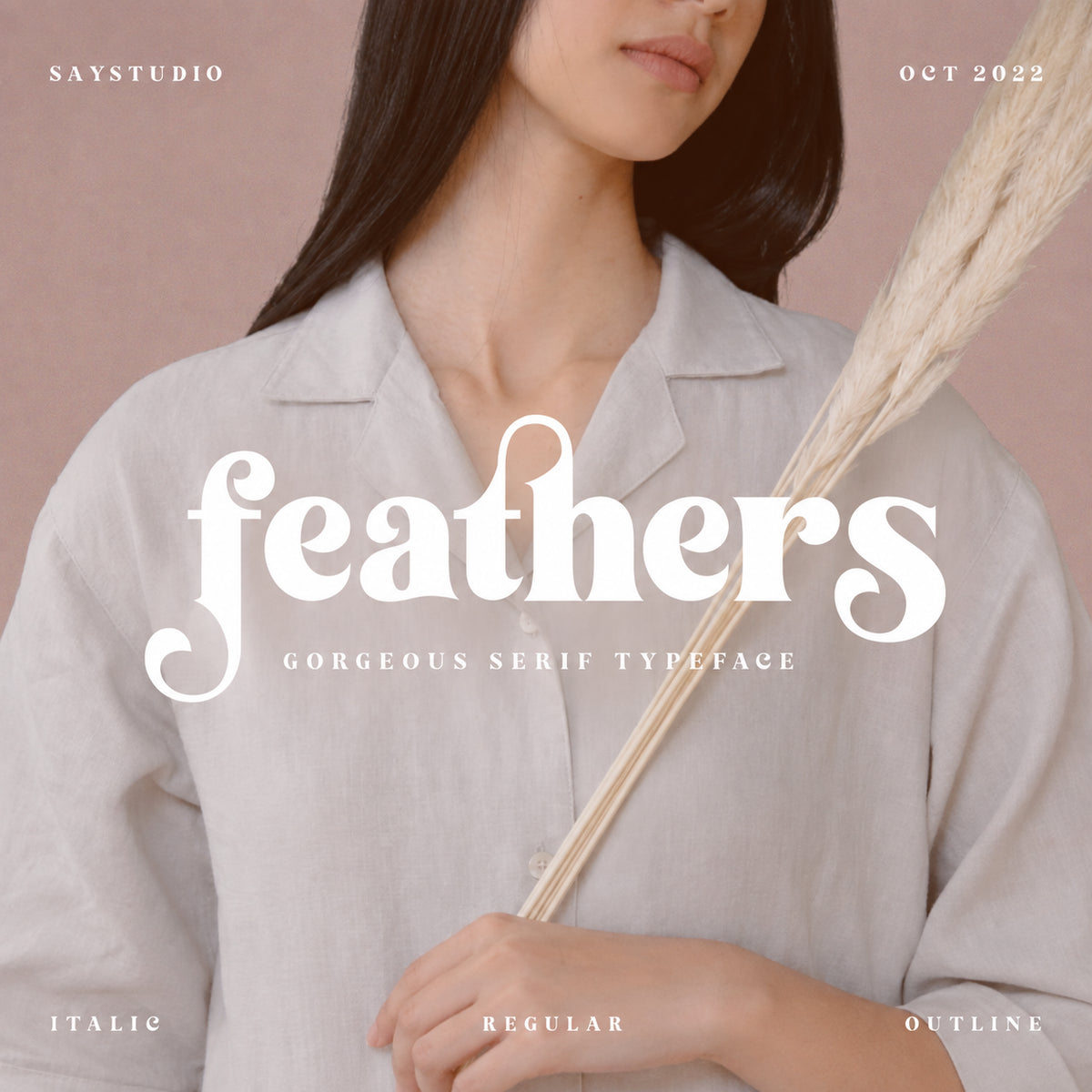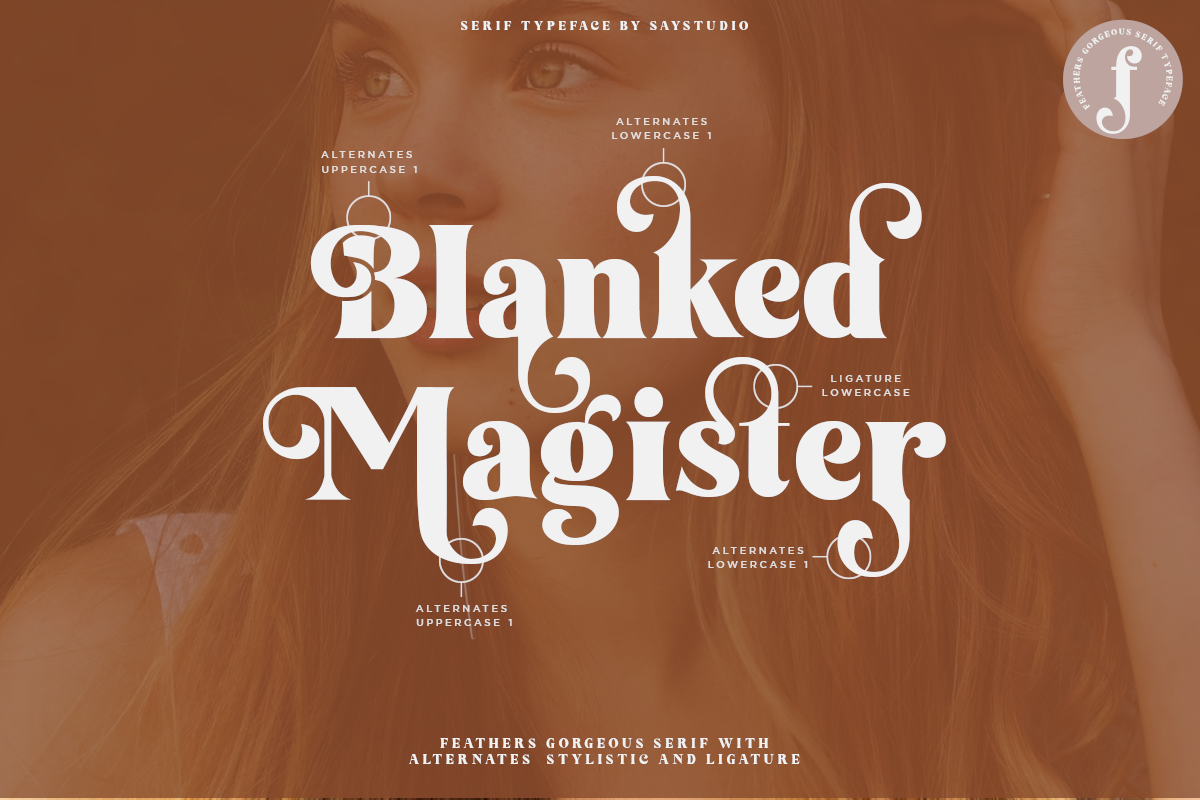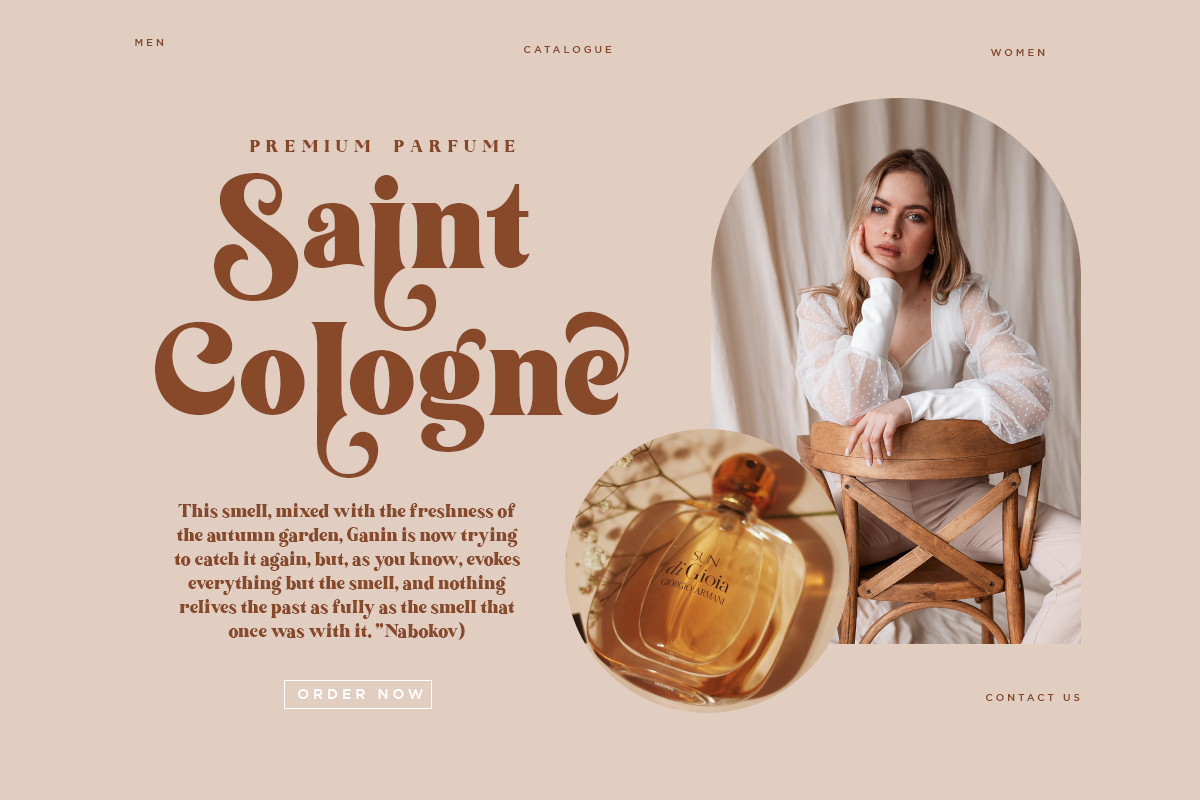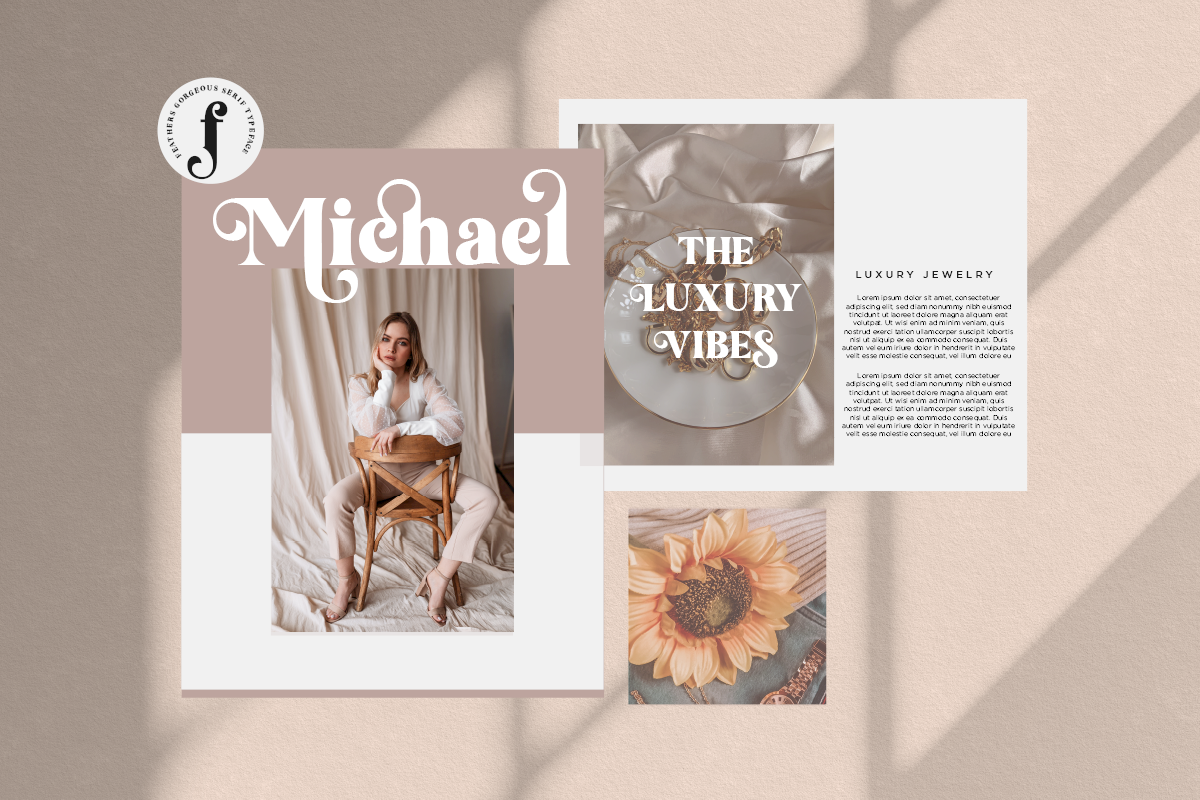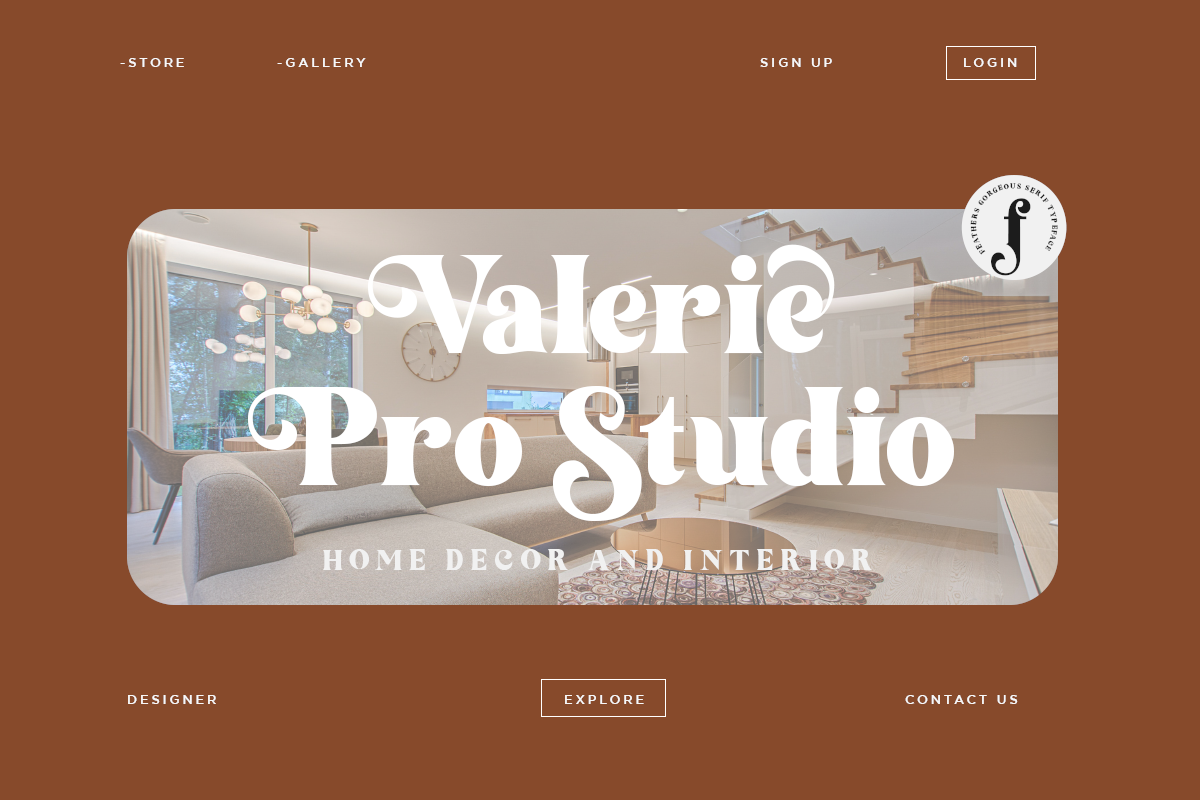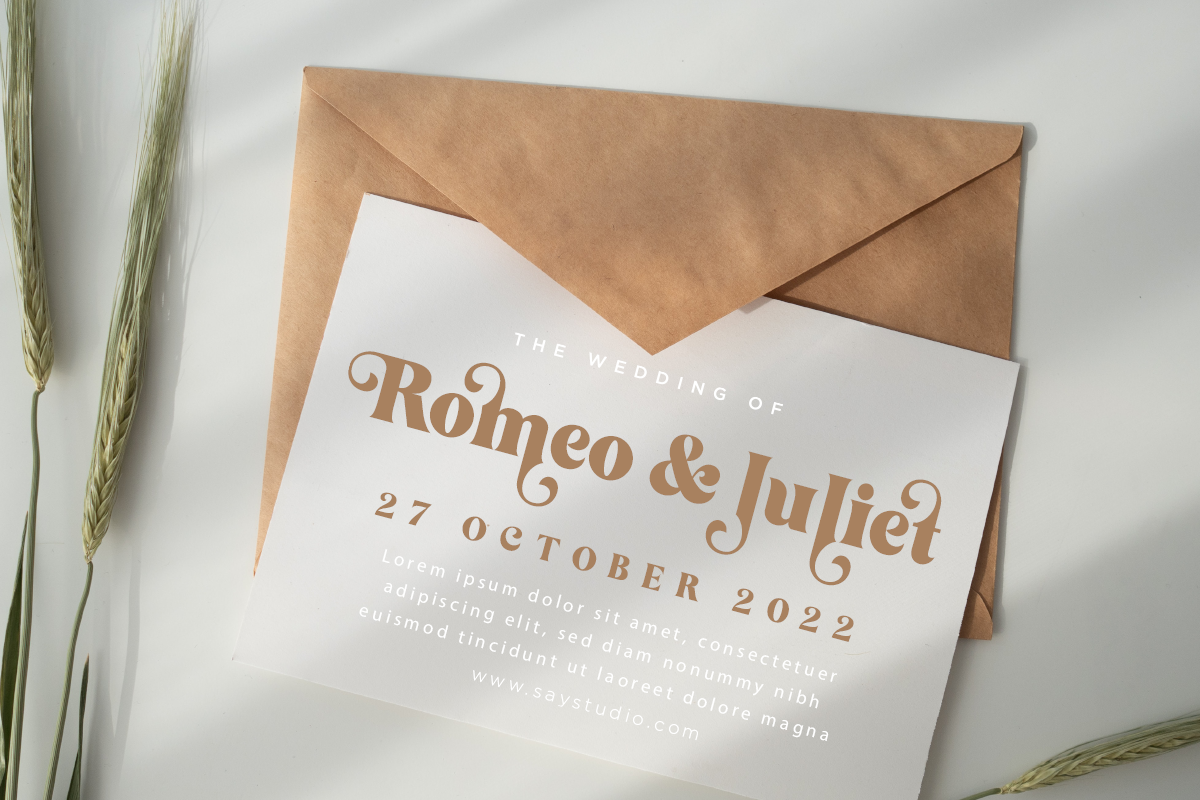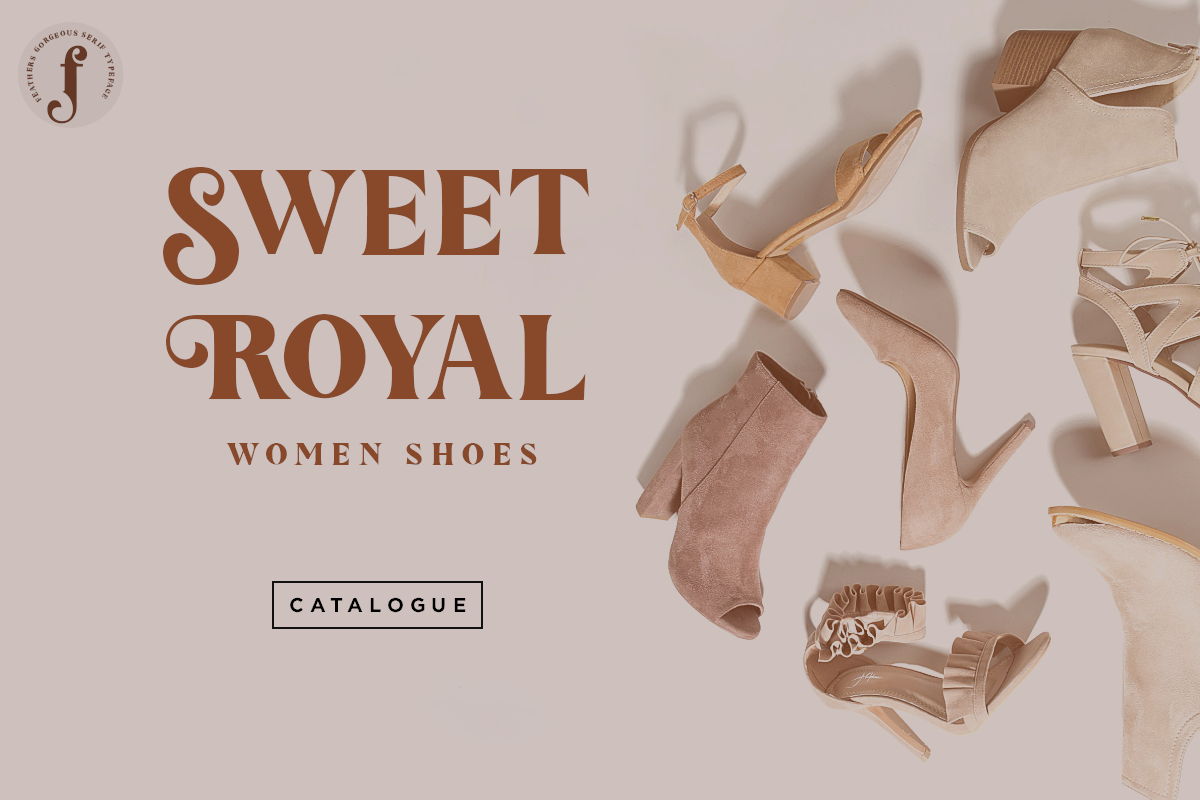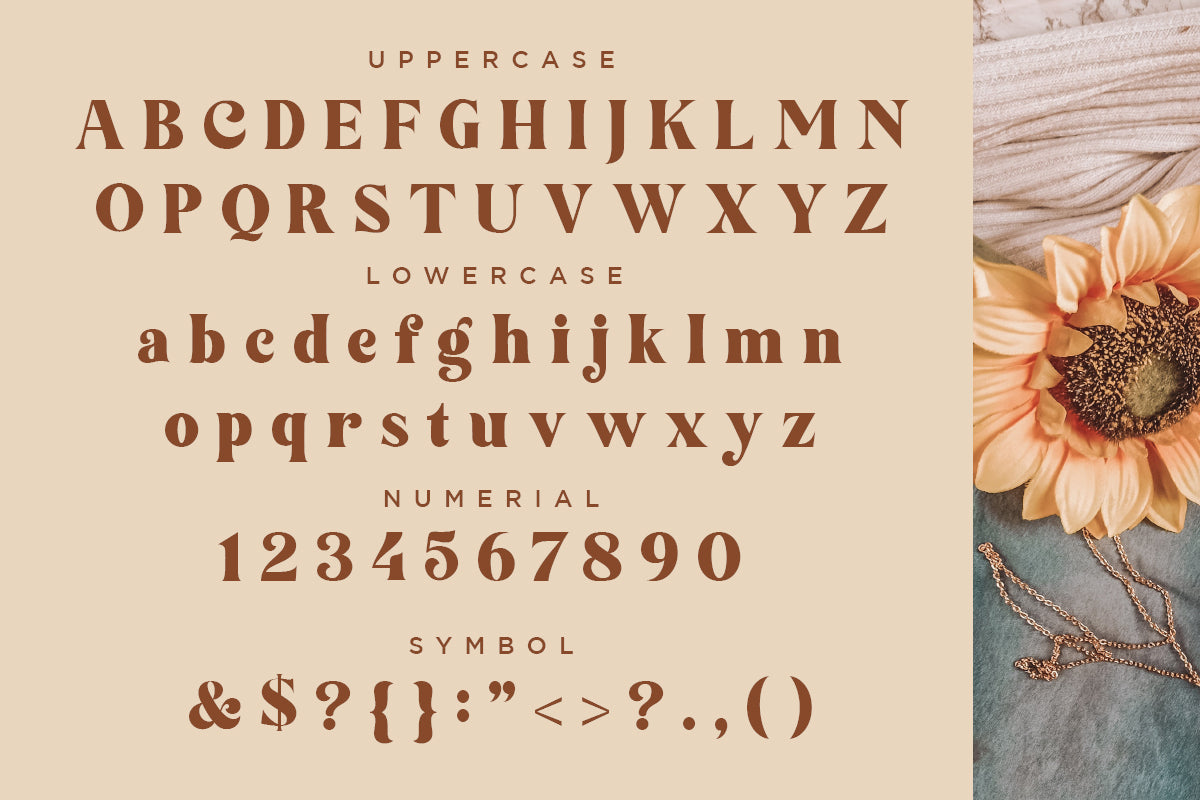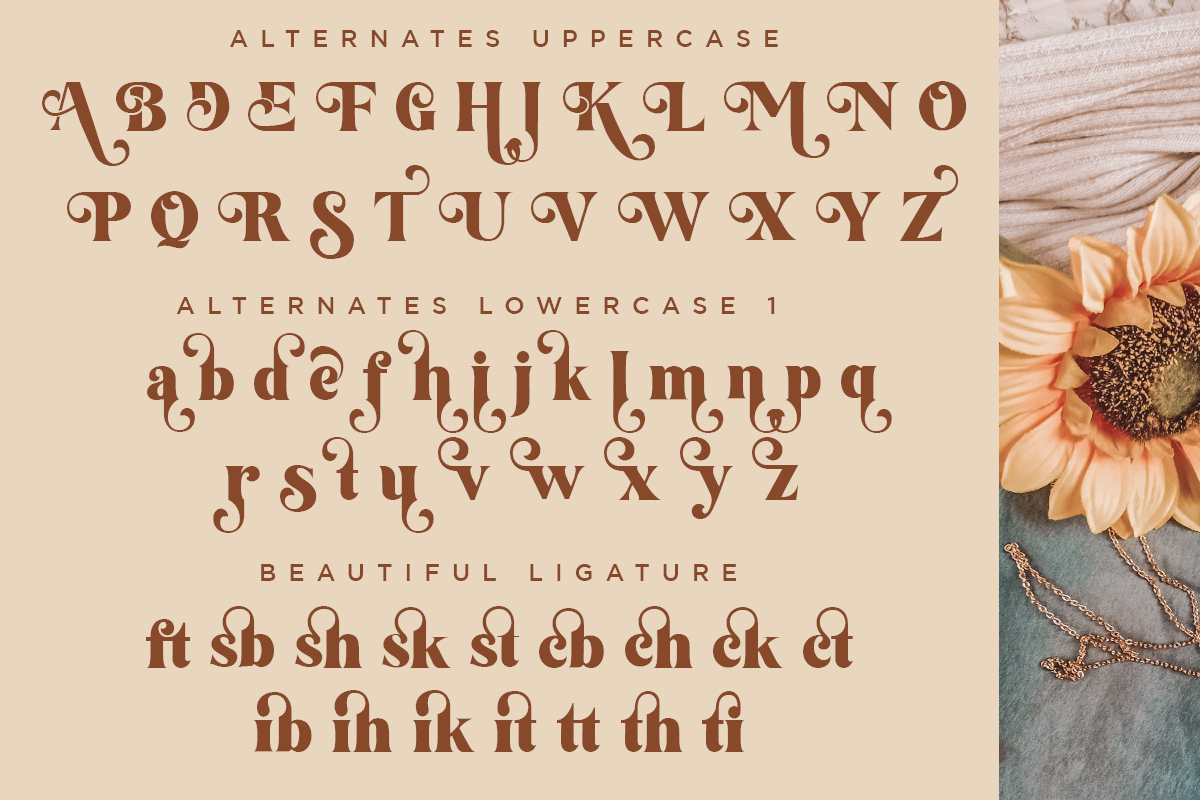
Feathers – Elegant Decorative Serif Font
Feathers is an elegant decorative serif font designed to bring a sophisticated, romantic, and luxurious touch to your typography. Featuring graceful curves, high-contrast strokes, and distinctive ornamental details, Feathers creates a beautiful statement while maintaining a refined editorial character.
Perfect for fashion branding, luxury logos, wedding invitations, editorial designs, beauty packaging, magazine covers, social media graphics, stationery, posters, and feminine branding. Its elegant personality works especially well for projects that need a stylish, timeless, and sophisticated aesthetic.
Use Feathers to create captivating headlines, elegant brand identities, romantic wedding designs, and premium visual compositions.
Special Alternates
Stylistic Ligatures
Number, Symbols, and Punctuation
Feathers is a decorative serif font featuring high-contrast strokes, graceful curves, and ornamental details, available in Regular and Italic styles. The package includes special alternates, stylistic ligatures, uppercase and lowercase characters, numbers, symbols, punctuation, multilingual support, and OTF, TTF, and WOFF file formats.